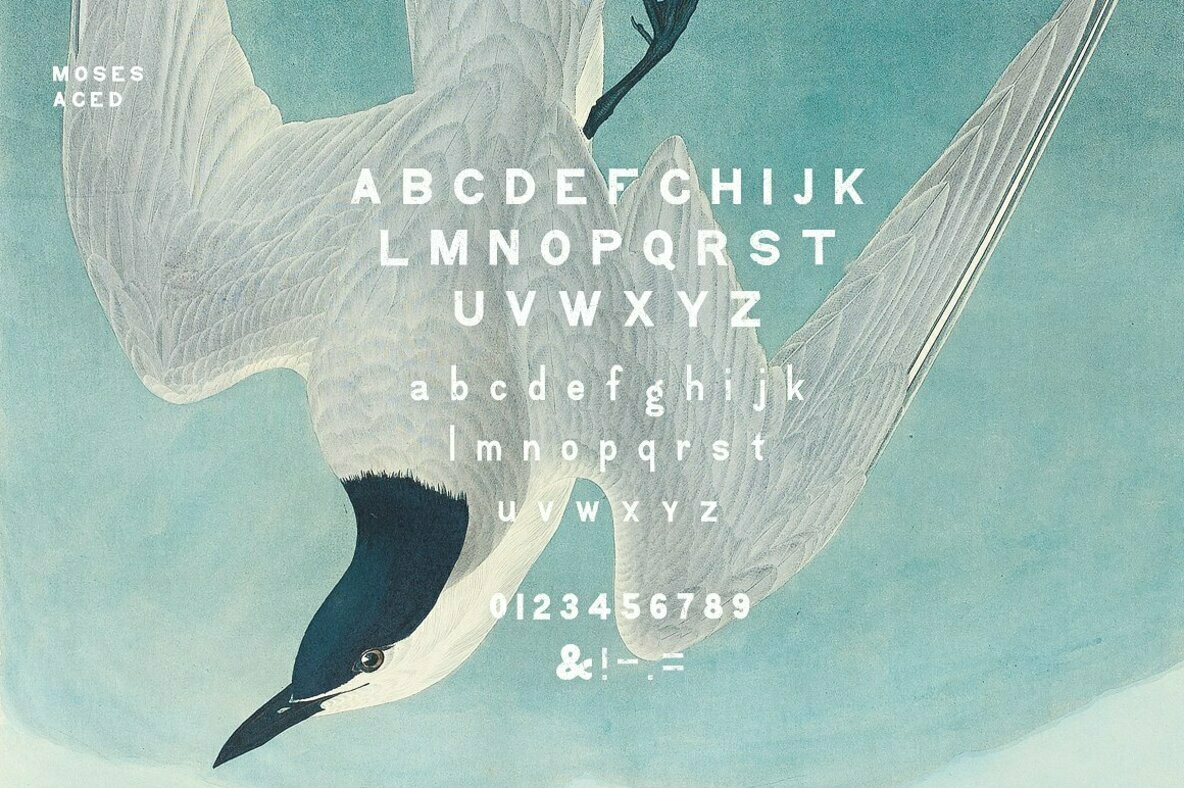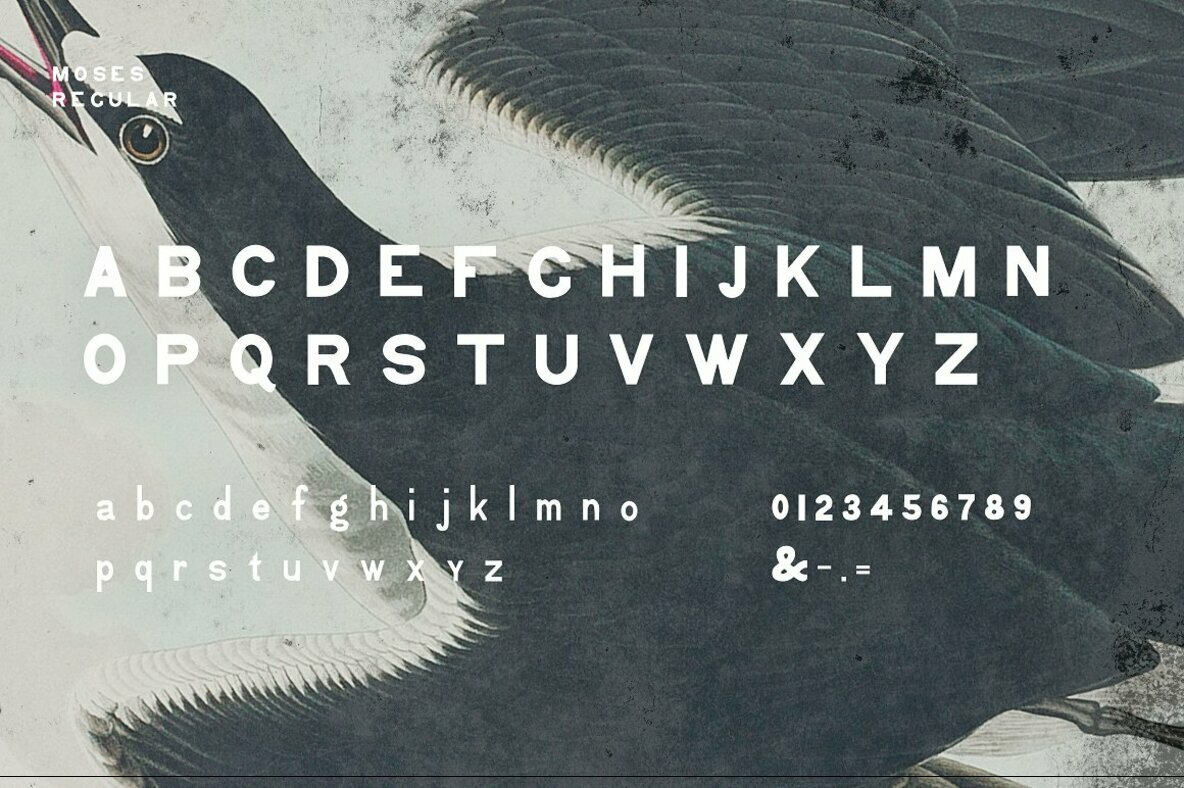
Moses Font
Moses is an Egyptian grotesque style font. Archeologists from the early 1800s, fascinated by the recent discoveries from ancient Egypt explorations, named this font style 'Egyptian' because the bold, chunky shapes that reminded them of the heavy stone slabs found in pyramids and other buildings.
This font style is intended as a pure display font, and performs at its best in headlines and big titles, it does an amazing job in logo design, brands and labels. It's perfect to give a unique vibe to your digital products and websites.
The font includes numbers and a limited set of punctuation, its main use being intended for branding and logos.